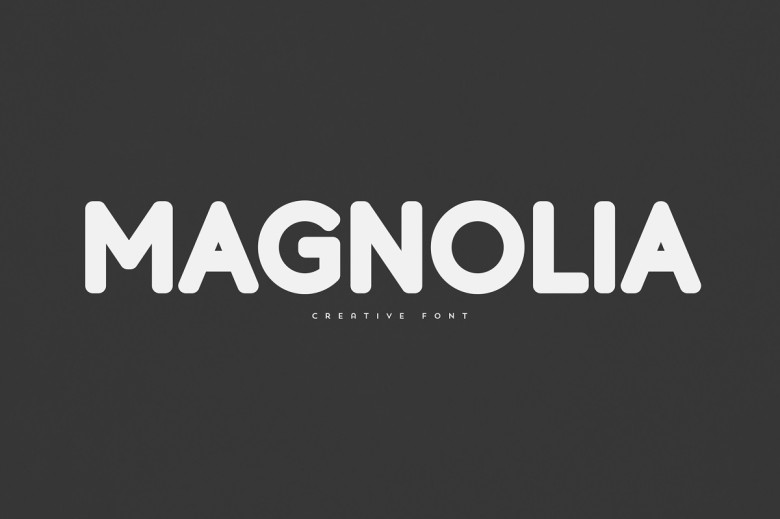
Magnolia Sans Font
Magnolia will add an exquisite flair to any typographic piece! A versatile sans-serif font, Magnolia adds elegance and class to logos, branding projects, homewares designs, magazine headers or as stylish text over any background image.
Magnolia Sans Serif Font